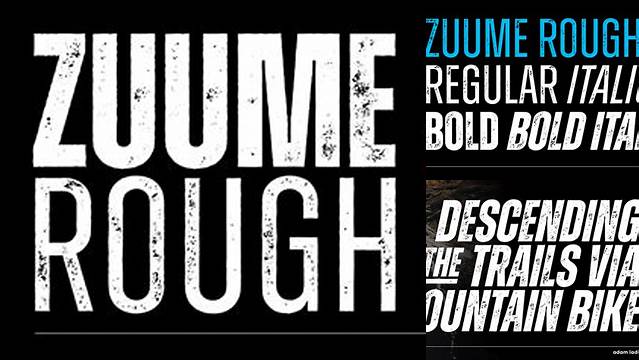
Zuume Rough Font Review: Fontspring Demo & Uses
Hey guys! Today, we’re diving deep into the Zuume Rough font, available for demo on Fontspring. If you're anything like me, you're always on the lookout for that perfect font to give your designs an extra edge. The Zuume Rough font family is definitely one that caught my eye, and I'm super excited to share my thoughts with you. This font has a unique, rugged texture that can add character and authenticity to a wide range of projects. Whether you're working on branding, posters, or web design, having the right font can make all the difference. We’ll explore everything from its design and features to its versatility and potential applications. By the end of this review, you'll have a solid understanding of what Zuume Rough has to offer and whether it's the right fit for your creative needs. So, let’s get started and see what makes Zuume Rough such a standout choice!
When you first encounter the Zuume Rough font, the immediate impression is one of character and texture. This isn't your run-of-the-mill, clean-cut font; it's got grit, it's got personality, and it’s definitely got a unique vibe. The rough aspect of the font is what sets it apart. It's not just a stylistic choice; it’s a design element that adds a layer of authenticity and a handmade feel to your work. This font family is designed with a textured appearance, giving it a slightly distressed, vintage feel. This makes it perfect for projects where you want to evoke a sense of nostalgia, craftsmanship, or even a bit of rebellion. The intentionally imperfect edges and surfaces create a visual interest that’s hard to ignore. The design elements of Zuume Rough include a variety of weights and styles, offering a comprehensive toolkit for designers. Each weight maintains the rough texture while providing different levels of boldness and impact. This means you can use Zuume Rough for headlines, body text, and everything in between. It’s versatile enough to adapt to different design needs while maintaining its distinctive character. The overall aesthetic is modern with a twist. It’s not a strictly vintage font, nor is it overly contemporary. It strikes a balance that allows it to fit into a variety of design contexts. Think about using it for branding a coffee shop, designing a gig poster, or even adding some flair to your website. The texture adds a tactile quality to the typography, making it feel almost tangible. It invites the viewer to lean in and take a closer look. This is a font that tells a story, and it does so with a confident, slightly rebellious voice. In a world where clean, sans-serif fonts often dominate, Zuume Rough offers a refreshing alternative. It’s a font that’s not afraid to stand out, to be a little rough around the edges, and to make a statement. For designers looking to add some personality and character to their work, Zuume Rough is definitely worth exploring.
Let's dig into the key features that make Zuume Rough a standout font. One of the most noticeable characteristics, as the name suggests, is its rough texture. This isn't just a superficial effect; it's a carefully crafted design element that gives the font a unique and authentic feel. The texture varies across the different weights and styles, adding depth and visual interest to your typography. This makes Zuume Rough incredibly versatile, allowing you to use it in a wide range of design projects. Another important feature is the variety of weights and styles available within the Zuume Rough family. This often includes light, regular, bold, and sometimes even extra-bold or black weights. Each weight maintains the characteristic rough texture, ensuring consistency across your designs while providing the flexibility to create visual hierarchy and emphasis. This range of options means you can use Zuume Rough for everything from headlines and subheadings to body text and captions. Beyond the basic weights, Zuume Rough often includes italic styles, which add another layer of versatility. The italic versions maintain the rough texture while introducing a dynamic, slanted appearance. This is perfect for adding emphasis, creating visual contrast, or simply giving your text a more handwritten feel. The stylistic choices make it great for projects needing a human touch. Character support is also a crucial factor. A well-designed font should include a comprehensive set of characters, including uppercase and lowercase letters, numbers, punctuation marks, and symbols. Zuume Rough typically offers extensive character support, making it suitable for use in multiple languages and across various design contexts. This ensures that you can use the font globally without worrying about missing characters or inconsistent glyphs. Furthermore, many fonts like Zuume Rough come with OpenType features, which can significantly enhance your typographic options. OpenType features might include ligatures (special character combinations), stylistic alternates (alternative versions of certain characters), and contextual alternates (characters that change their appearance based on the surrounding letters). These features allow you to fine-tune the appearance of your text and create truly unique and professional designs. The spacing and kerning of Zuume Rough are also carefully considered. Spacing refers to the overall amount of space between letters, while kerning is the adjustment of space between specific letter pairs. Well-balanced spacing and kerning are essential for readability and visual appeal. Zuume Rough is designed to ensure that the letters fit together harmoniously, creating a pleasant reading experience. Finally, the overall aesthetic of Zuume Rough is a key feature in itself. It strikes a balance between modern and vintage, rugged and refined. This versatility makes it a great choice for a wide range of design projects, from branding and advertising to web design and print materials. It’s a font that’s not afraid to stand out, but it also knows how to play well with others. For designers looking for a font with character, texture, and a touch of uniqueness, Zuume Rough is a compelling option.
The versatility of the Zuume Rough font is one of its strongest selling points. Guys, this font isn’t just a one-trick pony; it can adapt to a wide range of design scenarios, making it a valuable addition to any designer's toolkit. Its unique texture and character allow it to shine in various applications, from branding and advertising to web design and print materials. One of the most common uses for Zuume Rough is in branding. Its rugged, authentic feel can add a distinctive touch to logos, business cards, and other branding materials. Think about how well it would work for a coffee shop, a brewery, or a vintage-inspired clothing brand. The texture gives the brand a sense of history and craftsmanship, making it feel more genuine and approachable. In advertising, Zuume Rough can be used to create eye-catching headlines and captivating visuals. Its bold, textured appearance grabs attention and makes a statement. Whether you're designing a poster, a billboard, or a social media ad, this font can help your message stand out from the crowd. Its versatility allows it to be used in both print and digital advertising, ensuring consistency across all your marketing channels. For web design, Zuume Rough can add a touch of personality and uniqueness to your website. It works particularly well for headers and titles, where its texture can create visual interest without sacrificing readability. You can also use it for call-to-action buttons or other key elements to draw the user's eye. However, it's important to use it sparingly in body text to maintain a clean and legible reading experience. In the world of print materials, Zuume Rough truly shines. Its texture translates beautifully to printed surfaces, giving your designs a tactile quality that’s hard to replicate digitally. Consider using it for posters, flyers, brochures, and even packaging designs. The rough edges and distressed appearance can add a vintage or handmade feel, making your printed materials feel more special and unique. Beyond these core applications, Zuume Rough can also be used in a variety of other creative projects. It's a great choice for event posters, adding a touch of edginess and excitement. It can also be used for book covers, particularly those that evoke a sense of adventure, mystery, or history. Its versatility extends to apparel design, where it can be used to create bold and stylish graphics for t-shirts, hoodies, and other clothing items. Overall, the potential applications for Zuume Rough are vast and varied. Its unique character and texture make it a versatile choice for designers looking to add personality and authenticity to their work. Whether you're branding a business, designing an ad campaign, or creating a website, Zuume Rough can help you make a lasting impression. Its ability to blend modern and vintage aesthetics makes it a timeless choice that will continue to be relevant for years to come.
To effectively use the Zuume Rough font, it's crucial to understand its strengths and limitations. While its rugged texture and unique character can add a distinctive touch to your designs, it's important to use it judiciously to avoid overwhelming your audience. Here are some tips and best practices to help you make the most of Zuume Rough. First and foremost, consider the context of your design. Zuume Rough works particularly well in projects where you want to evoke a sense of authenticity, craftsmanship, or vintage charm. It's a great choice for brands and projects that have a strong personality and want to stand out from the crowd. However, it may not be the best fit for designs that require a more clean, modern, or minimalist aesthetic. Think about the overall message you're trying to convey and whether Zuume Rough aligns with that message. Pairing Zuume Rough with the right fonts is also essential. Because it's a textured font, it's often best to pair it with simpler, cleaner fonts for body text. This creates a visual contrast that enhances readability and prevents your design from becoming too cluttered. Sans-serif fonts like Helvetica, Arial, or Open Sans can work well, as can clean serif fonts like Times New Roman or Georgia. Experiment with different combinations to find what works best for your specific project. Hierarchy is another important consideration. Zuume Rough is particularly effective for headlines and titles, where its bold texture can grab attention. However, using it for large blocks of body text can make your design difficult to read. Use it sparingly in smaller sizes and for shorter pieces of text to maintain readability. You can use different weights and styles within the Zuume Rough family to create a visual hierarchy and emphasize key information. When it comes to color, Zuume Rough works well with a variety of palettes. Its texture can add depth and interest to both light and dark backgrounds. Consider using contrasting colors to make the font stand out, or use more muted tones for a more subtle effect. Experiment with different color combinations to see what works best for your design. Spacing and kerning are also crucial for readability. Ensure that the letters are properly spaced and that the kerning is adjusted to create a harmonious appearance. This is particularly important with textured fonts like Zuume Rough, where the rough edges can sometimes make the spacing appear uneven. Pay attention to the details and make sure that your text is easy to read and visually appealing. Consistency is key in any design project. If you're using Zuume Rough in a branding context, make sure to use it consistently across all your materials. This helps to reinforce your brand identity and create a cohesive look and feel. Use it in the same weights and styles, and pair it with the same fonts and colors, to maintain a consistent visual message. Finally, don't be afraid to experiment. Zuume Rough is a versatile font that can be used in a variety of ways. Play around with different applications, pairings, and styles to see what you can create. The best way to learn how to use a font effectively is to get hands-on experience and see how it works in different contexts. With these tips in mind, you can effectively harness the unique character of Zuume Rough and create stunning designs that stand out from the crowd.
So, what's the final verdict on the Zuume Rough font? After a thorough review, it's clear that this font has a lot to offer. Its unique texture, versatility, and distinct character make it a standout choice for designers looking to add some personality to their work. Guys, I'm genuinely impressed with what Zuume Rough brings to the table. The key strengths of Zuume Rough lie in its ability to evoke a sense of authenticity and craftsmanship. The rough texture gives it a handmade feel, making it perfect for projects that want to convey a sense of history, tradition, or ruggedness. It's a font that tells a story and adds depth to your designs. Its versatility is another major plus. With a variety of weights and styles, Zuume Rough can be used for headlines, body text, and everything in between. This makes it a valuable addition to any designer's toolkit, as it can adapt to a wide range of design scenarios. Whether you're working on branding, advertising, web design, or print materials, Zuume Rough has the flexibility to meet your needs. The Fontspring demo experience further enhances its appeal. The ability to try the font before you buy it is invaluable. It allows you to test it in your own designs, see how it looks in different contexts, and ensure that it's the right fit for your project. Fontspring's user-friendly interface and excellent customer support make the demo process a breeze. However, like any font, Zuume Rough has its limitations. Its textured appearance may not be suitable for all design projects. It works best in situations where you want to add character and personality, but it may not be the best choice for designs that require a more clean, modern, or minimalist aesthetic. It's also important to use it judiciously, particularly in body text, to maintain readability. In terms of recommendations, I would highly recommend Zuume Rough to designers who are looking for a font with a unique, textured appearance. It's a great choice for brands and projects that want to convey a sense of authenticity, craftsmanship, or vintage charm. It's particularly well-suited for coffee shops, breweries, vintage-inspired businesses, and creative projects that need a touch of edginess. I would also recommend taking advantage of the Fontspring demo to try it out for yourself. This will give you a better sense of its capabilities and help you determine whether it's the right fit for your specific needs. Experiment with different pairings, weights, and styles to see what you can create. Overall, Zuume Rough is a fantastic font with a lot to offer. Its unique character and versatility make it a valuable addition to any designer's toolkit. If you're looking for a font that can help your designs stand out from the crowd, Zuume Rough is definitely worth considering. So go ahead, give it a try, and see what you can create!
In conclusion, the Zuume Rough font is a compelling choice for designers seeking to infuse their projects with character and authenticity. Its distinct textured appearance sets it apart from more conventional fonts, making it a valuable asset for a range of applications. Guys, we've really dug into what makes Zuume Rough special, and it's clear that its strengths lie in its ability to evoke a vintage, handmade feel while maintaining a modern edge. The versatility of Zuume Rough is another key advantage. With its various weights and styles, it can adapt to different design needs, from headlines to body text. This flexibility ensures that it can be seamlessly integrated into diverse projects, whether for branding, advertising, or web design. Its ability to pair well with cleaner fonts also makes it a versatile option, allowing designers to create balanced and visually appealing compositions. The Fontspring demo experience provides a crucial opportunity to test the font before committing to a purchase. This hands-on approach allows designers to evaluate its readability, experiment with different styles, and ensure it aligns with their specific project requirements. The ease of use and comprehensive information provided by Fontspring make this demo a valuable step in the font selection process. While Zuume Rough may not be the perfect fit for every design aesthetic, its unique qualities make it particularly well-suited for projects aiming to convey a sense of craftsmanship, history, or ruggedness. It’s an excellent choice for businesses and brands that want to project a genuine and approachable image. However, it’s important to use it thoughtfully, considering the overall context and ensuring that it complements the message and visual style of the design. Ultimately, the decision to use Zuume Rough will depend on the specific needs and goals of your project. However, its distinctive texture, versatility, and the availability of a comprehensive demo make it a font worth exploring. If you're looking to add a touch of personality and authenticity to your designs, Zuume Rough is definitely a contender. So, give it a try, experiment with its features, and see how it can elevate your creative work. I hope this review has given you a thorough understanding of the Zuume Rough font and helps you make an informed decision for your next design project. Happy designing!